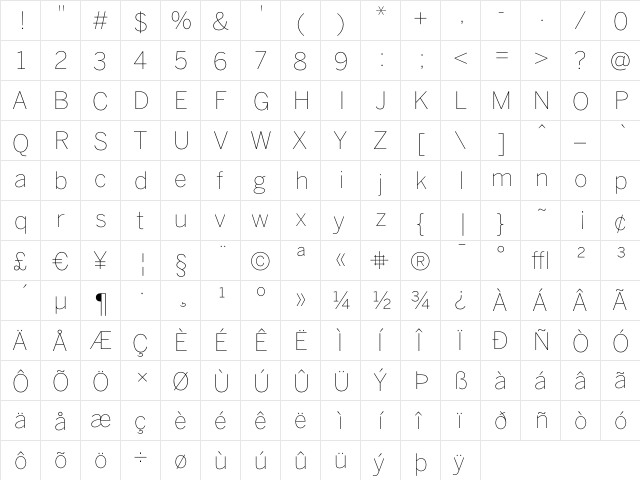
BentonSans Thin
Design Context for BentonSans Typeface
BentonSans is a composed and adaptable typeface that performs quietly and consistently across a wide range of design contexts. The delicate stroke weight brings airiness and refinement to layouts.